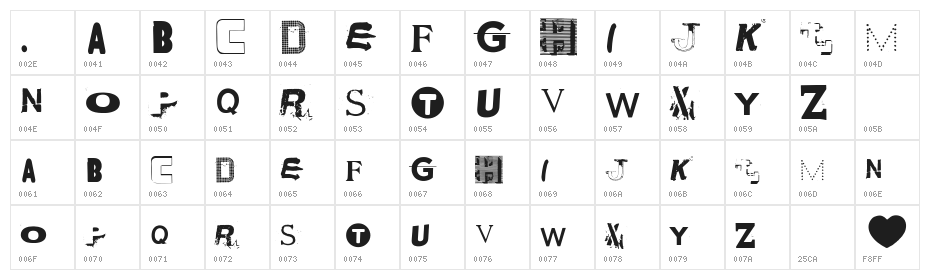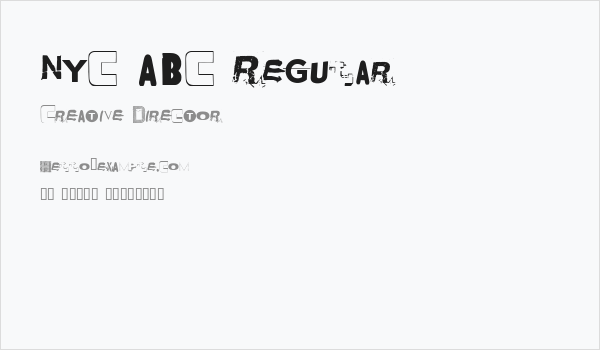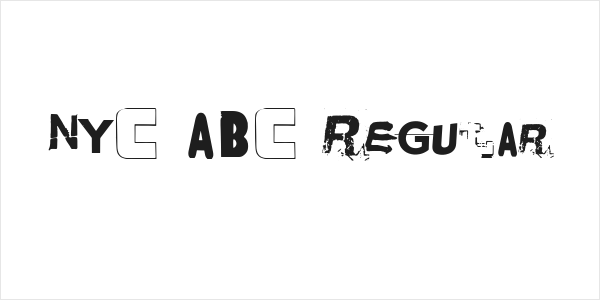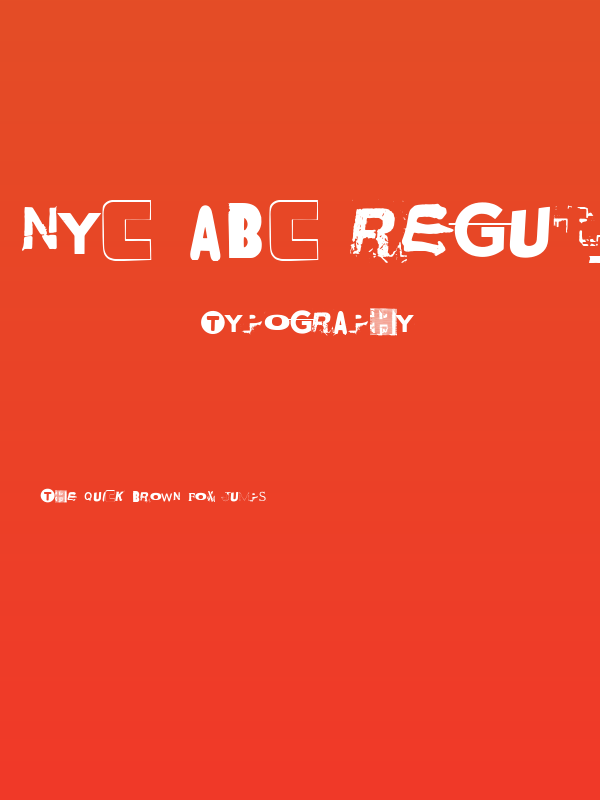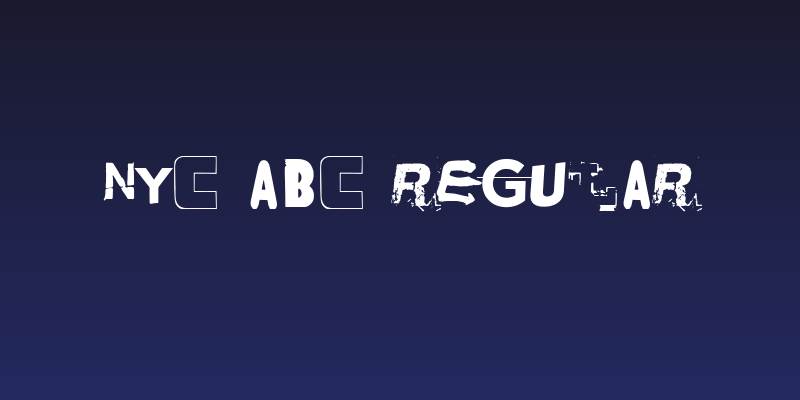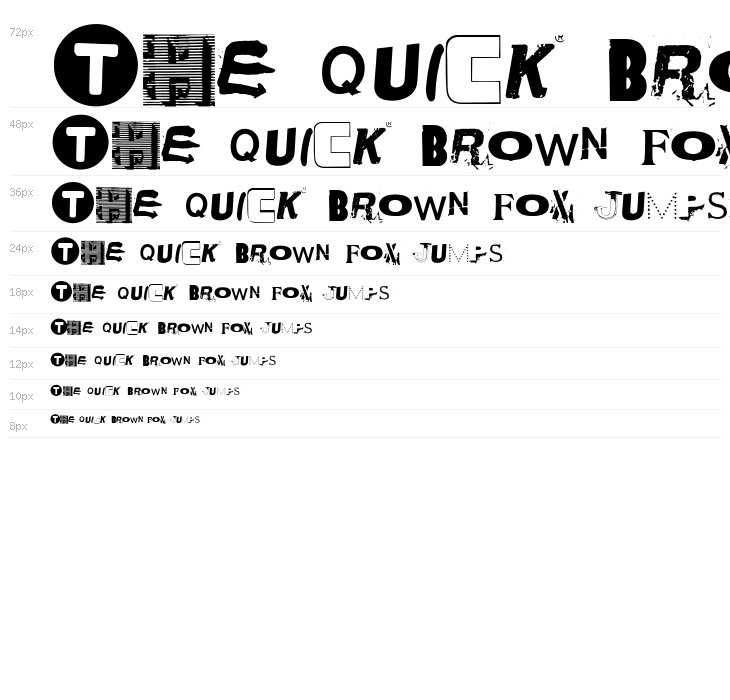
NYC ABC Regular Font
NYC ABC Regular Description
This font is a bold and eclectic display typeface that combines various textures and styles within each character. The uppercase letters feature a mix of solid fills, outlines, and distressed patterns, creating a dynamic and urban aesthetic. The font's design is reminiscent of street art and graffiti, with a playful yet edgy vibe. The characters are uniquely styled, with some incorporating geometric shapes and others featuring a grunge-like texture. This font is ideal for projects that require a bold statement and a modern, artistic touch.
Overall StyleModern, Urban, Artistic
Proposed ProjectsIdeal for posters, album covers, streetwear branding, and urban-themed designs.